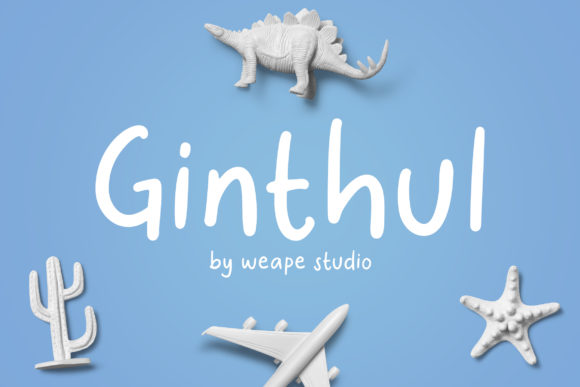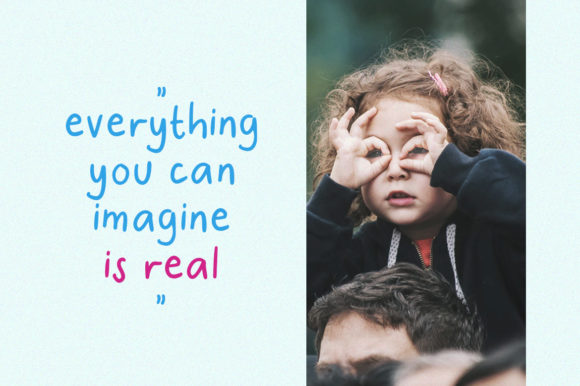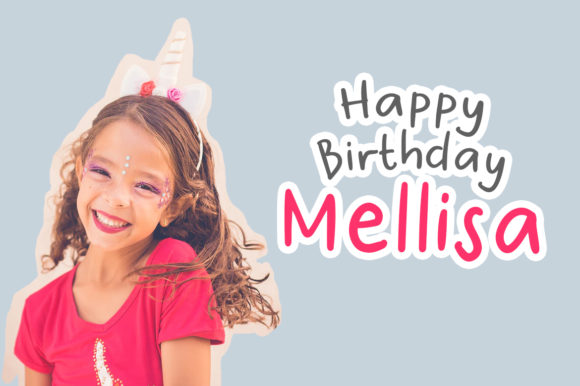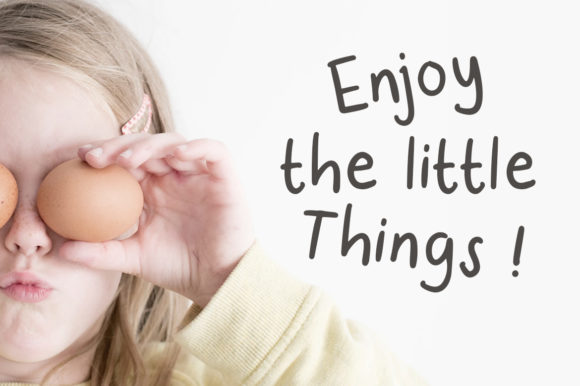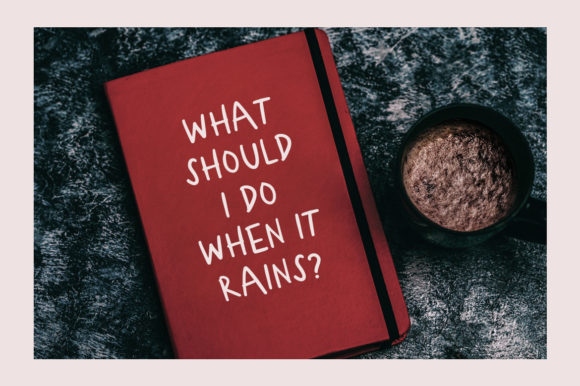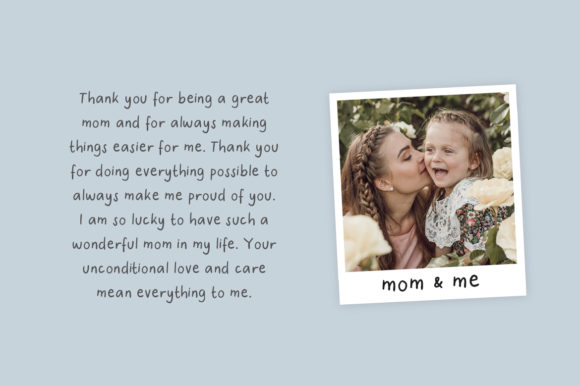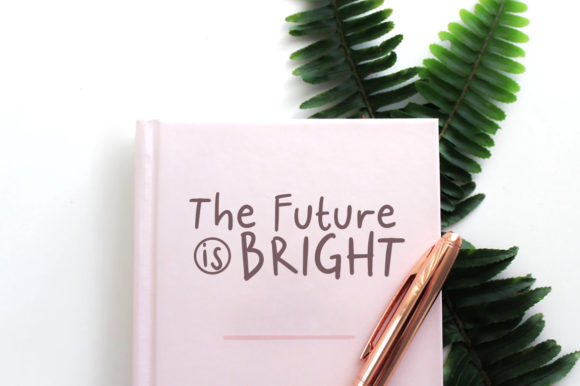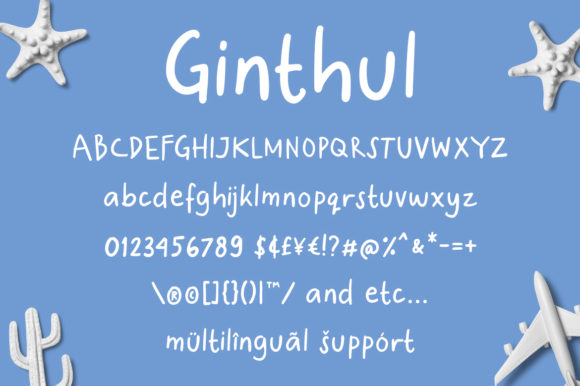
Ginthul Font
About Ginthul Font
Ginthul is a fun and playful handwritten font. Give your next design a joyful look with this charming font.
It will be the perfect choice for any kids related project.